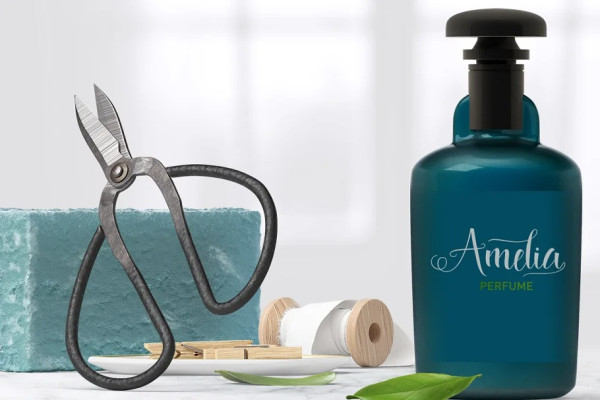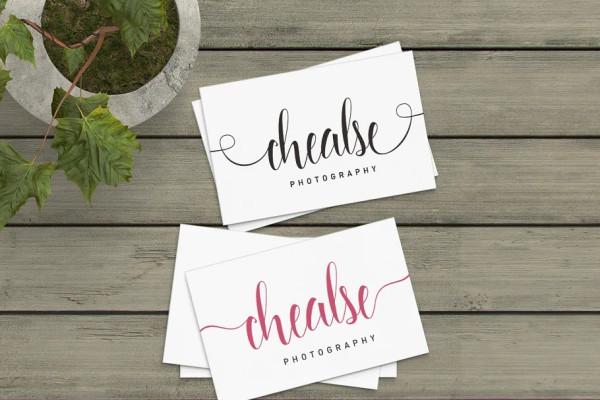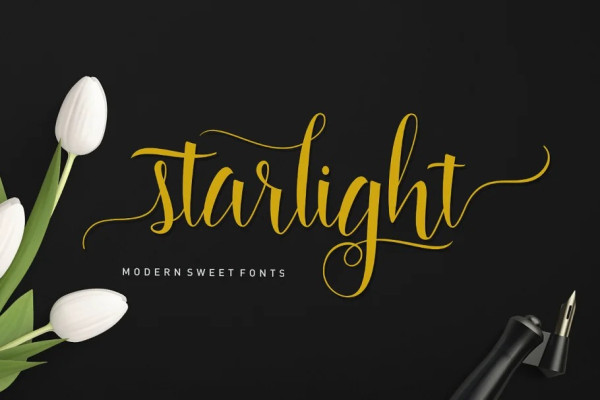
Starlight Calligraphy Typeface
Starlight Calligraphy Font with the kind of modern hand scratches, I hope you are interested in this font, if you want to use for your work this font can be used easily and simply because there are a lot of features in it to contain a complete set of letters lower and uppercase letters, assorted punctuation, numbers, and multilingual support. font also contains several ligatures and alternate style Stylistic.